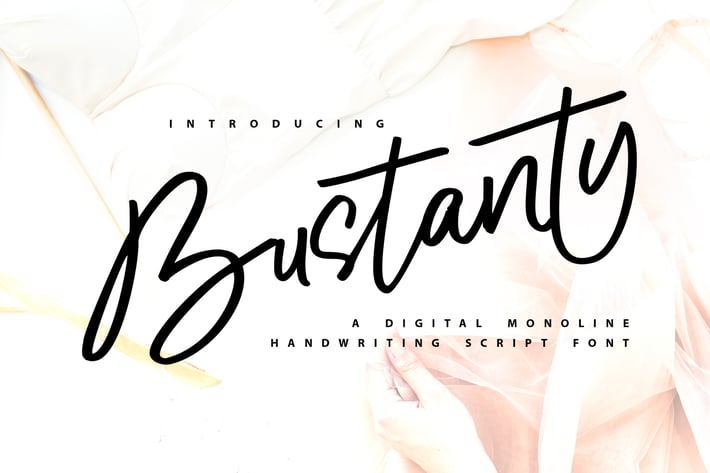
Bustanty | Monoline Handwriting Script Font
Bustanty | Monoline Handwriting Script Font with a calligraphy style, So beautiful on invitation like greeting cards, branding materials, business cards, quotes, posters, and more!